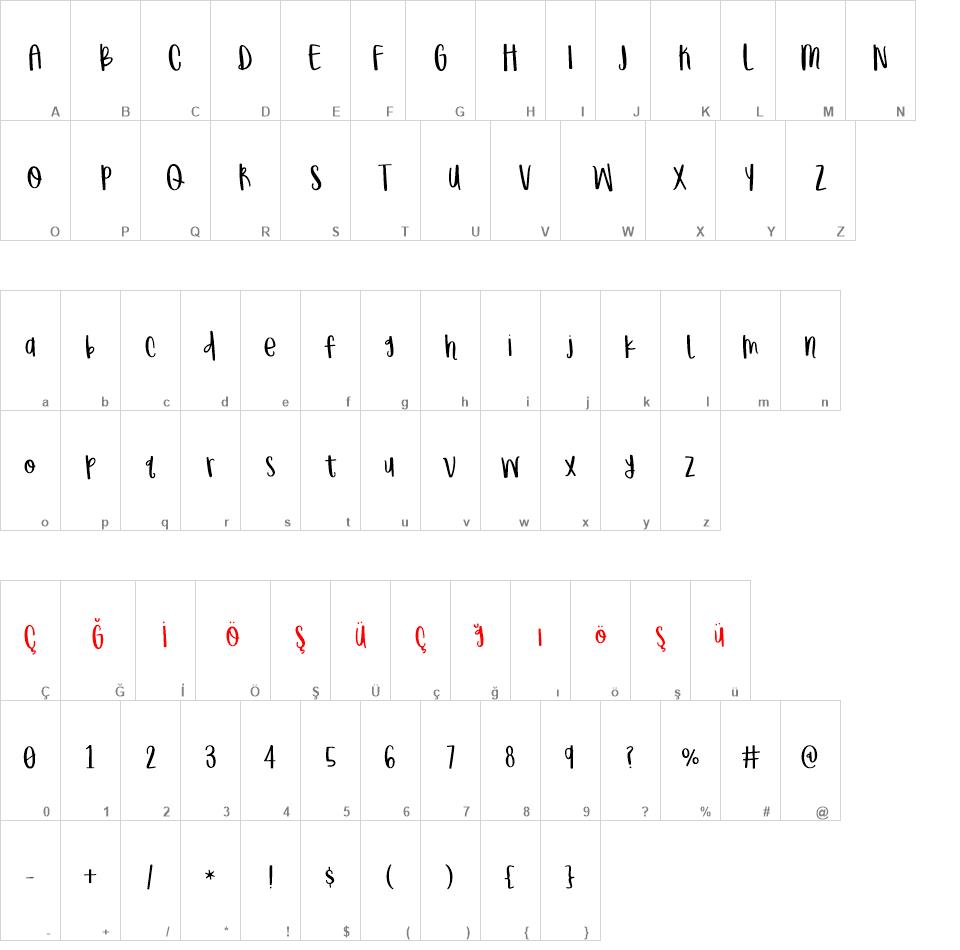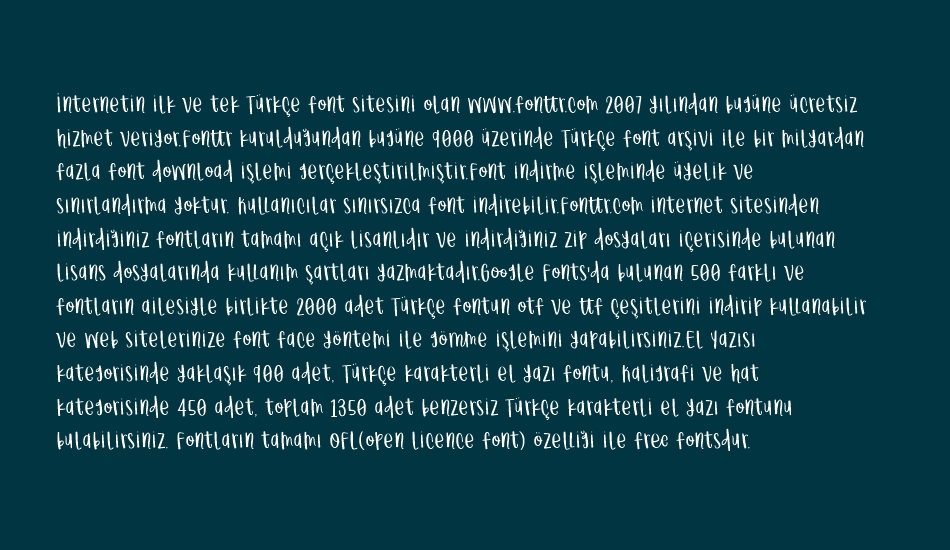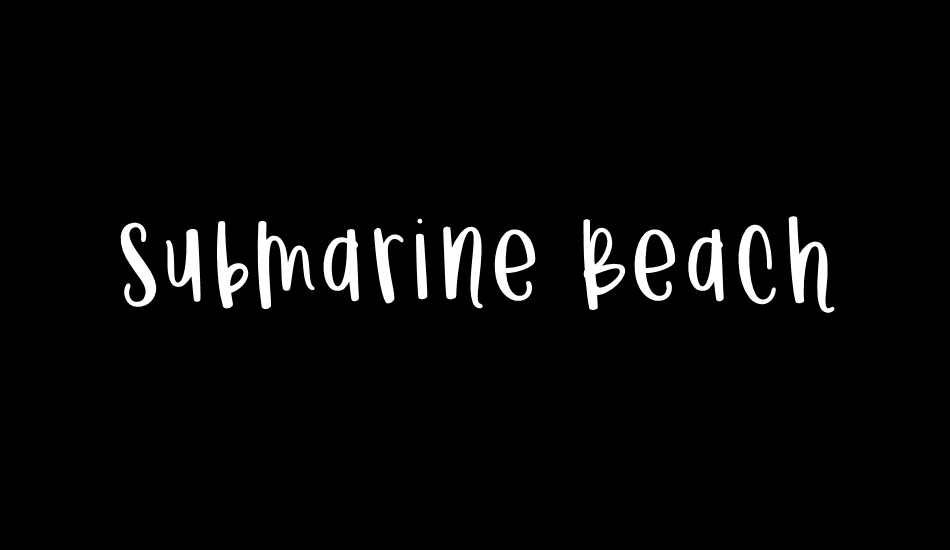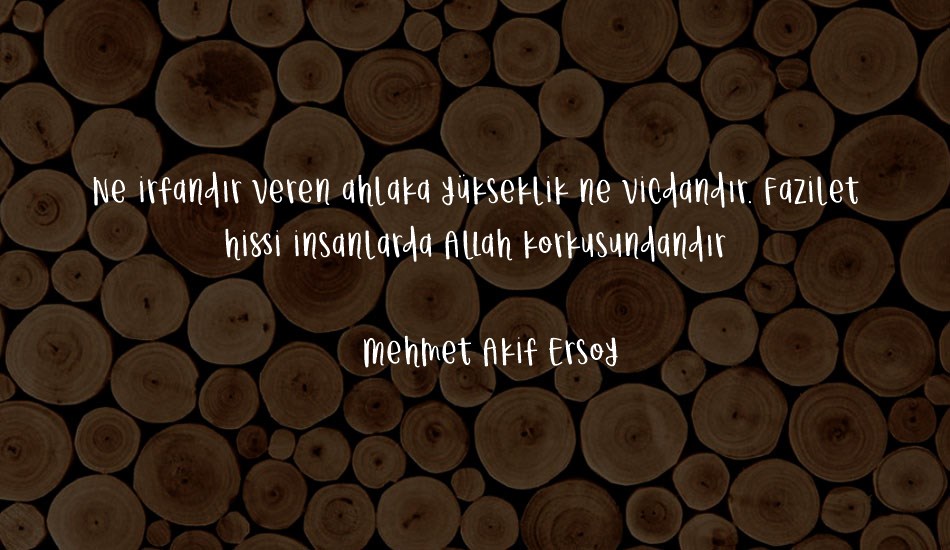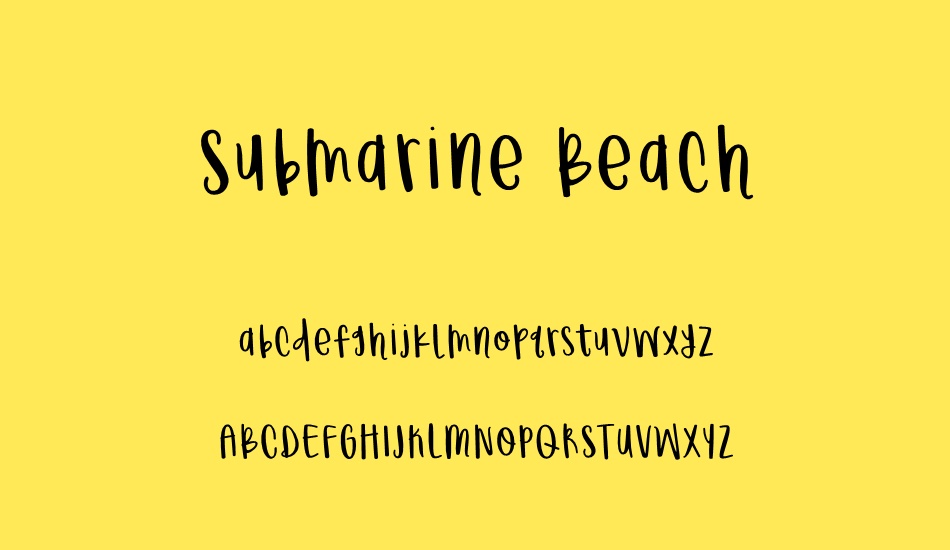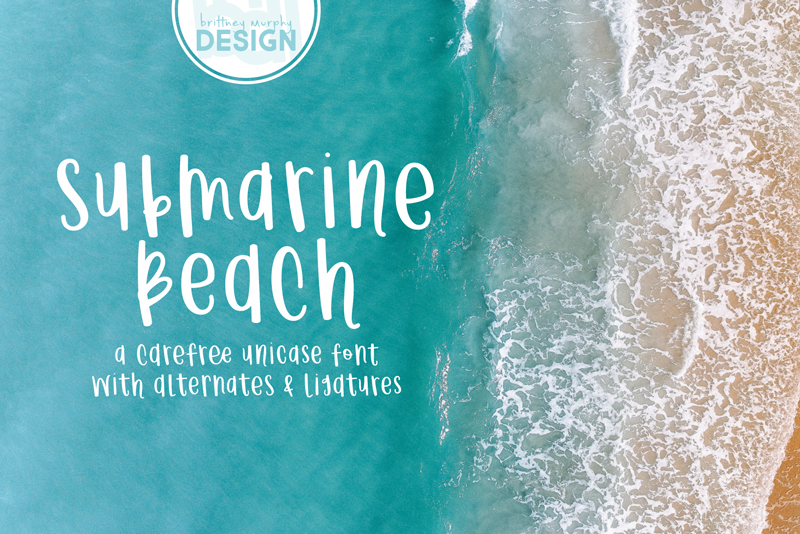
Submarine Beach font
Submarine Beach is a funloving & carefree unicase font with alternates and ligatures. Mix and match between upper and lowercase and alternates for a custom look!